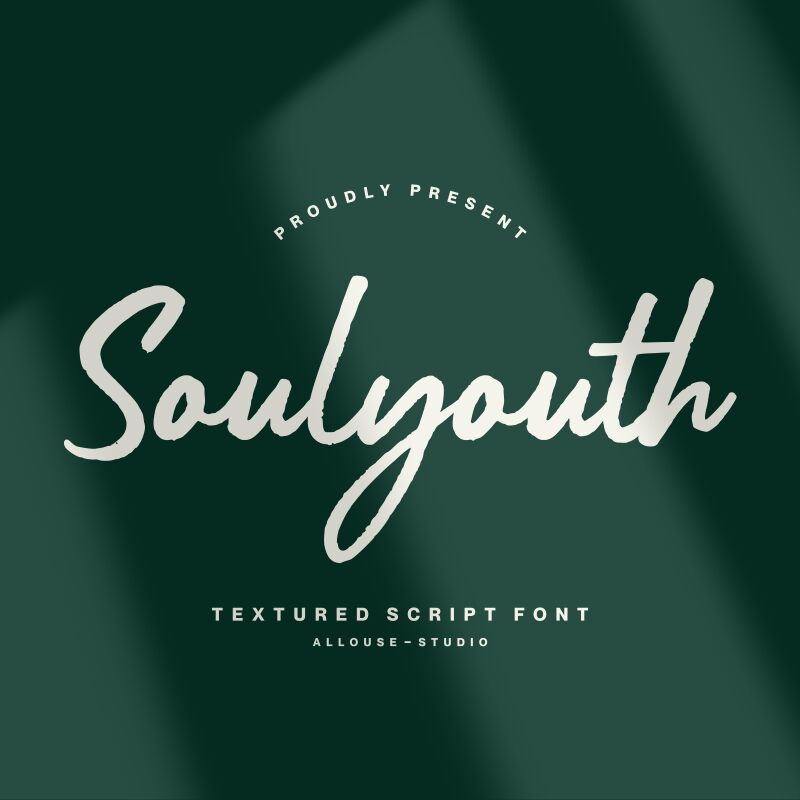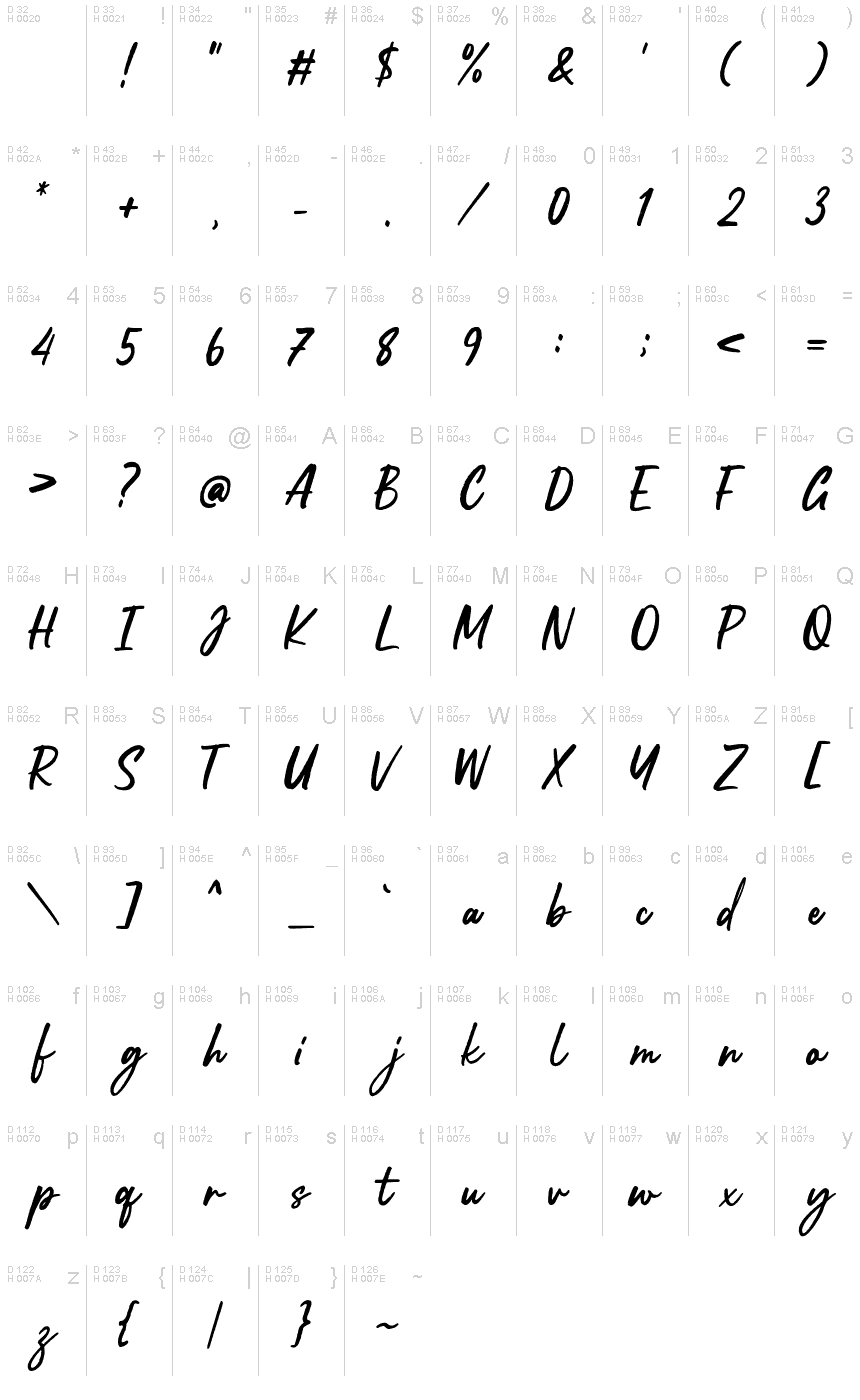
Soulyouth
Soulyouth is the perfect semi-light handwritten font for projects that require a personal touch. Created by Allouse Studio, this font exudes warmth and approachability, making it ideal for everything from wedding invitations to social media graphics. Its delicate strokes and charming imperfections add an authentic feel to any design, while its legibility ensures readability. Soulyouth's versatility makes it suitable for a wide range of projects, including branding materials, packaging design, and even editorial layouts. Embrace the unique character of this handwritten typeface and make your next project stand out from the crowd.